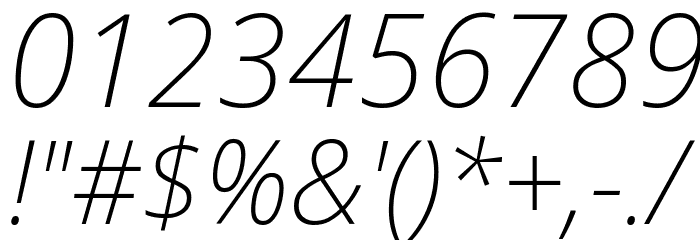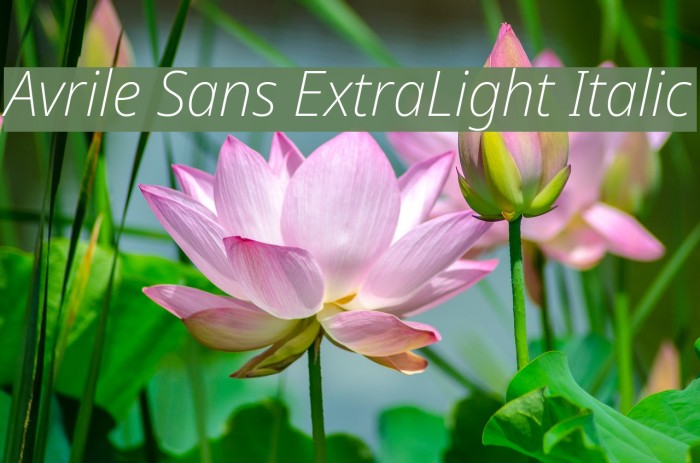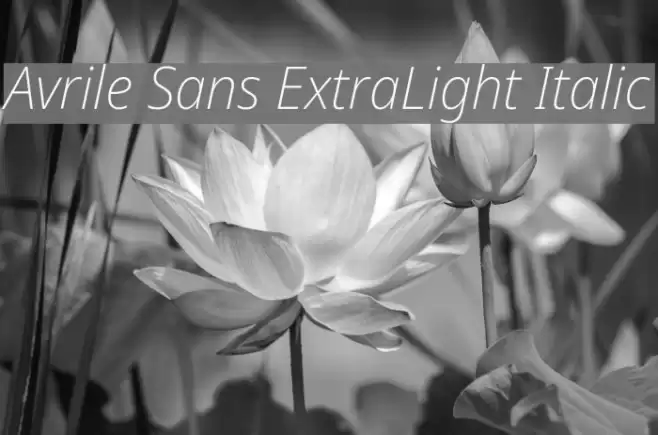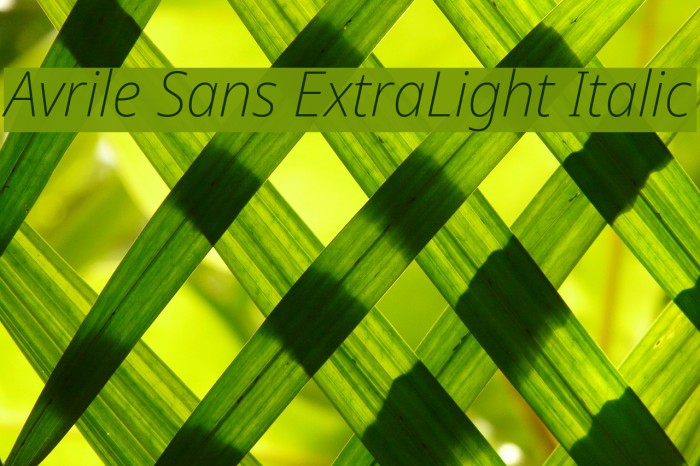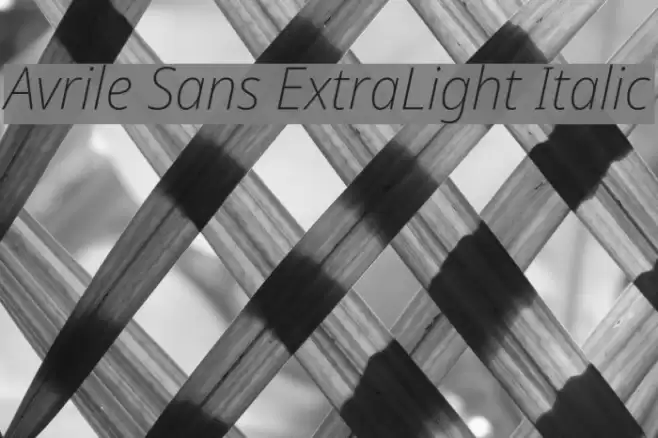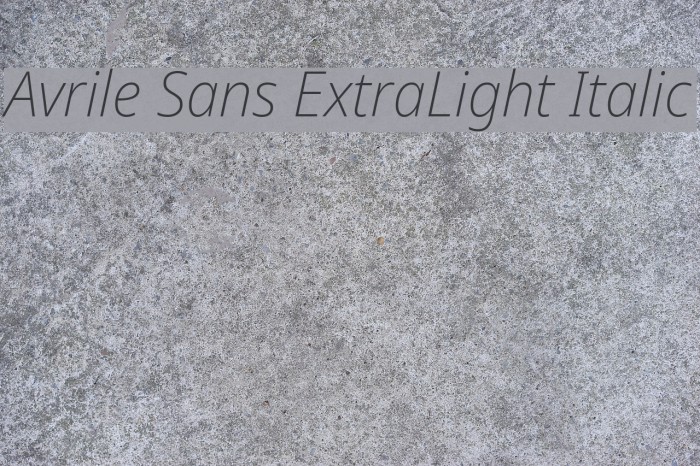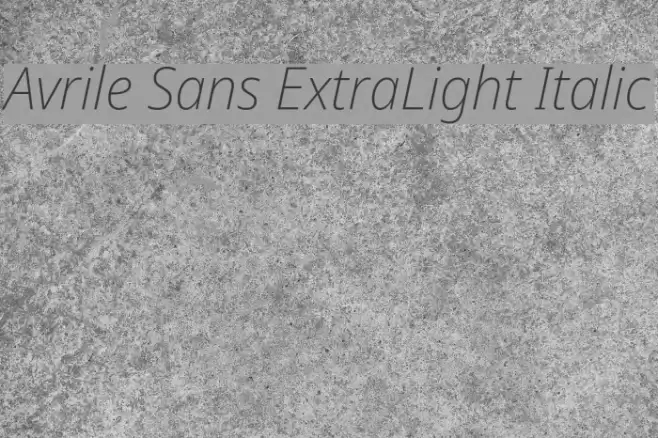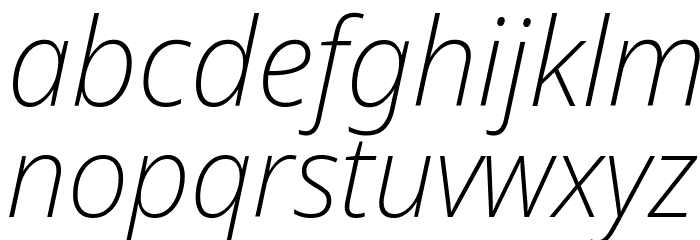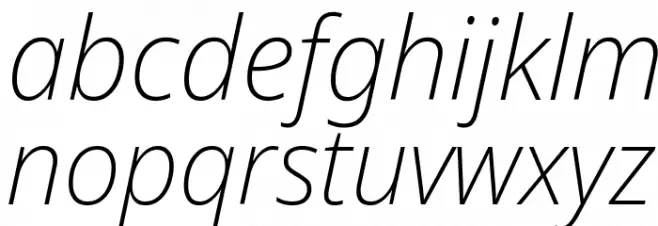
Avrile Sans ExtraLight Italic Font
Avrile Sans ExtraLight Italic Description
This font is a sleek and modern sans-serif typeface characterized by its extra light weight and italic style. The letters are elegantly elongated with a slight slant, giving it a sophisticated and contemporary appearance. The clean lines and minimalistic design make it highly readable, while the subtle curves add a touch of elegance. The numerals and special characters maintain the same light and airy feel, ensuring consistency across all text elements. This font is perfect for projects that require a modern and stylish look without compromising on readability.
| Use Case | Headlines, Body text, Logos |
| Proposed Projects | Ideal for fashion magazines, modern branding, elegant invitations, and minimalist web design. |